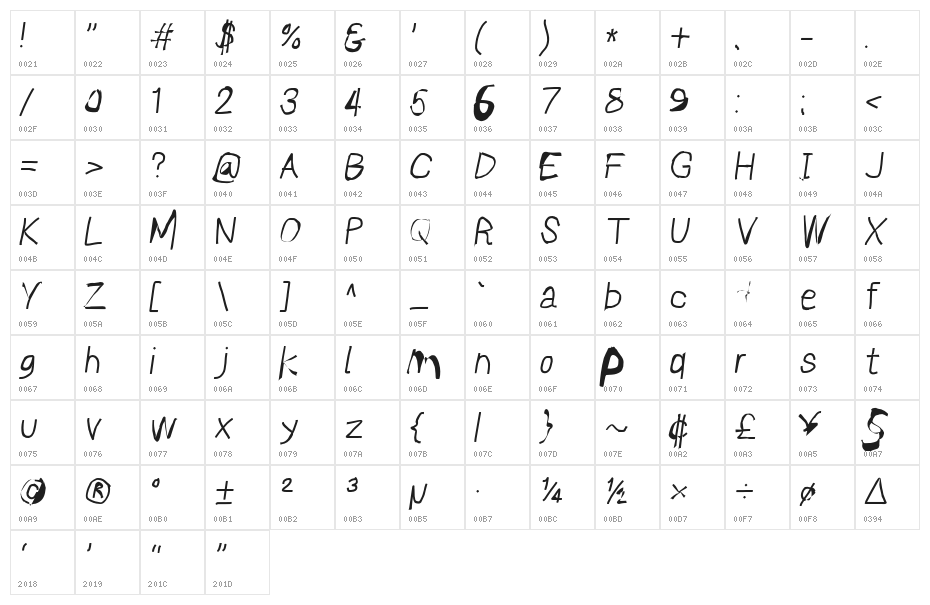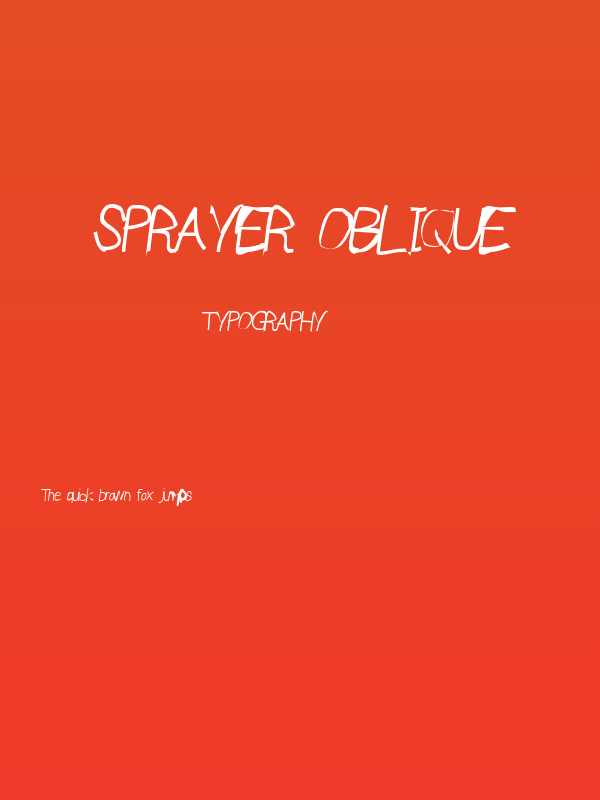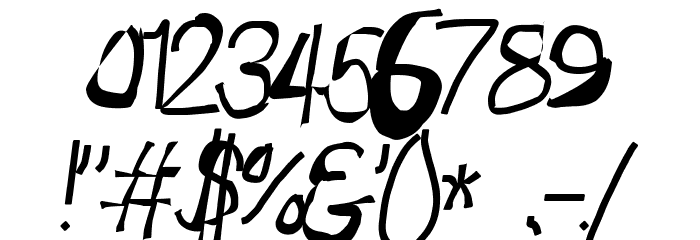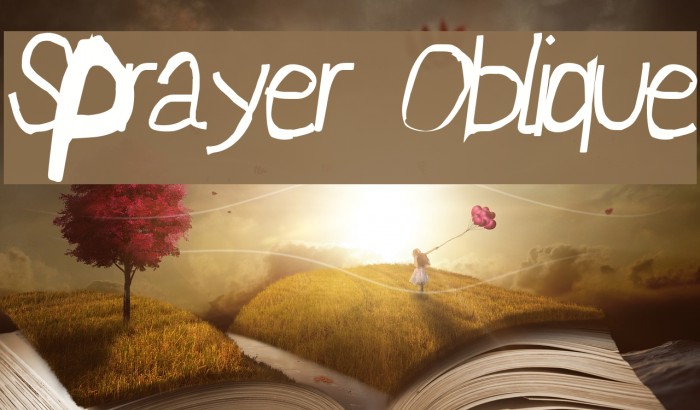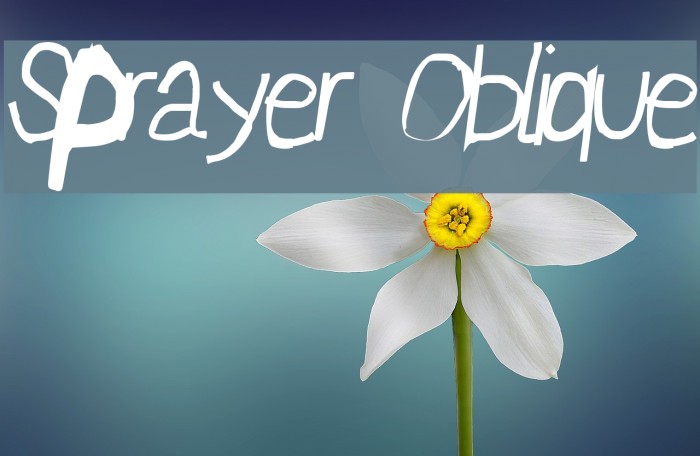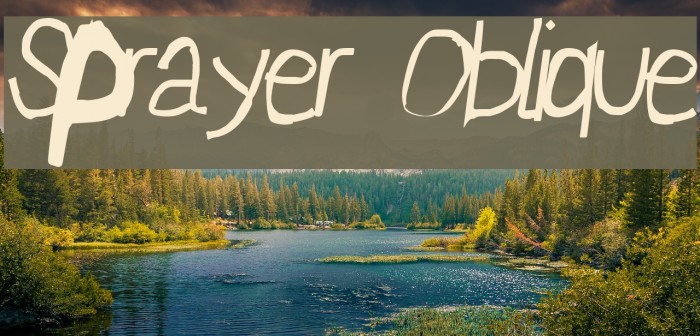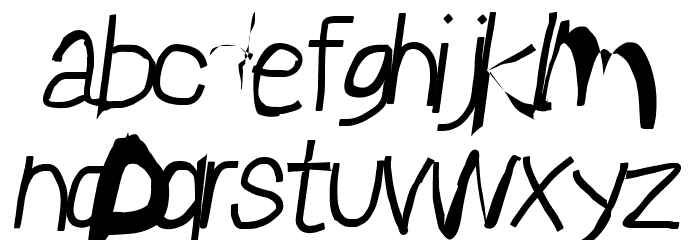
Sprayer Oblique Font
Sprayer Oblique Description
This font features a dynamic and energetic style, characterized by its oblique orientation and brush-like strokes. The uppercase letters exhibit a bold and expressive form, while the lowercase letters maintain a consistent flow, adding to the overall fluidity. Numbers and special characters follow the same artistic approach, making them stand out with their unique flair. The font's design is reminiscent of graffiti art, with a modern twist that adds a sense of movement and creativity. Its irregular shapes and varying stroke thickness contribute to a lively and informal appearance.
| Use Case | Logos, Posters, Creative Advertisements |
| Proposed Projects | Ideal for street art-themed projects, urban branding, posters, and creative advertisements. |